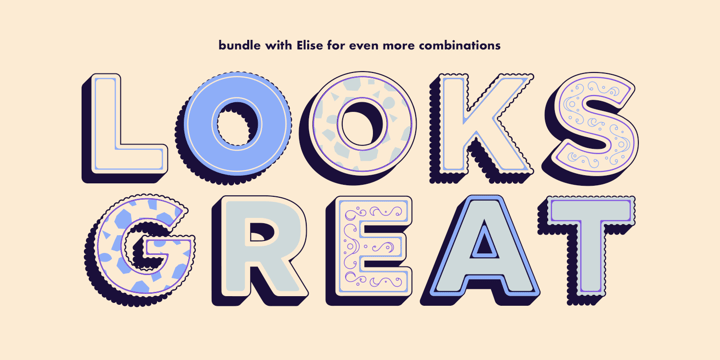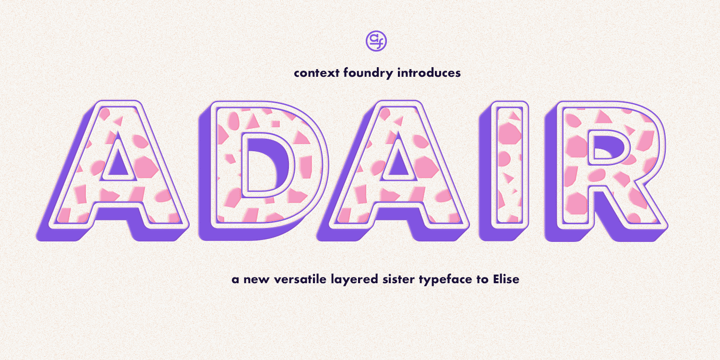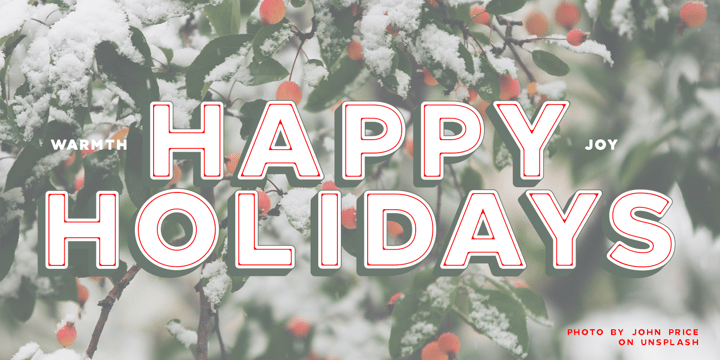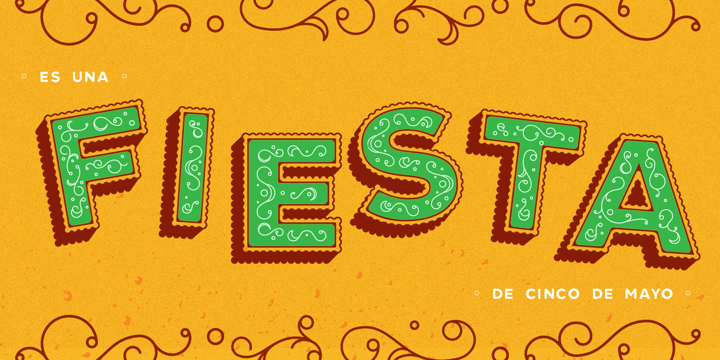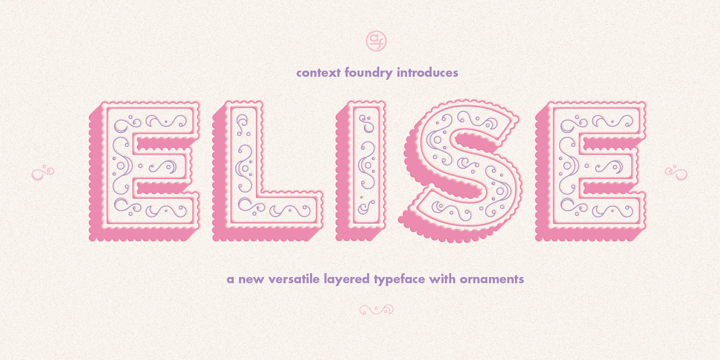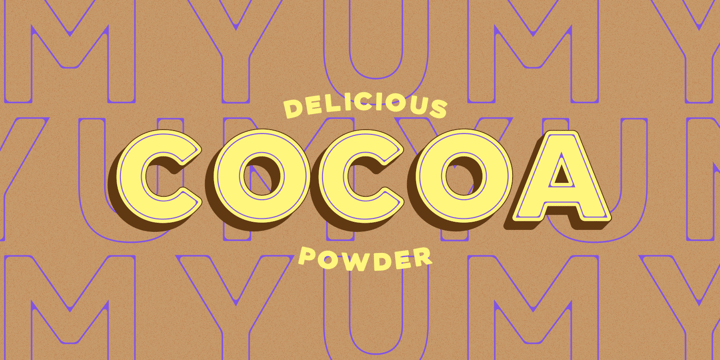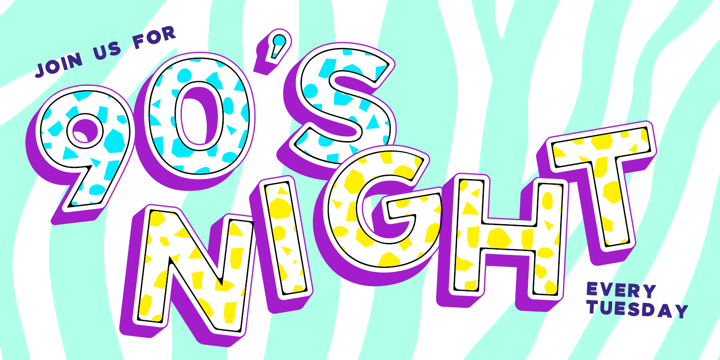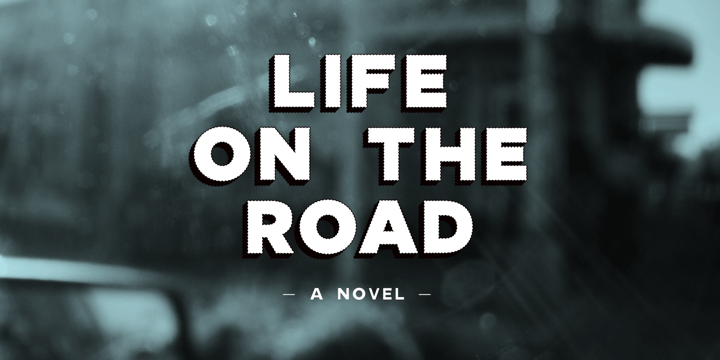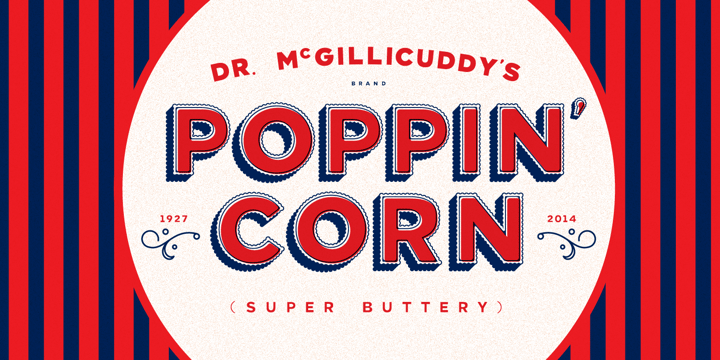
The Sisters Bundle
Includes both layered typefaces from Context Foundry:
Elise
Elise is a sweet natured, layered display typeface, with a few layers but a wealth of options. From the feminine to the fun to the nostalgic, Elise is a capable and personable set. Best used BIG and with color, you’ll always find an occasion for Elise’s charm. To use this typeface, once you have your copy in place in the design program of your choice, copy your text block and paste it directly on top of your existing text block. Set this new text block to a different Elise layer and voila! You’ll already start to see some interesting effects take place. In some cases, different effects are achieved by bringing The Elise Ribbed layer to the front or to the back.
Adair
Like her older sister, Adair is a layered display typeface, with a handful of layers but so many possibilities. This display face is best used BIG and with color. With the right mix of combinations and color you'll always find ways for Adair to make your project shine. To effectively utilize this typeface, simply position your text block in your preferred design software, duplicate it, and overlay one block on top of the other. Adjust the new block to a distinct Adair layer and color, allowing the dynamic effects to emerge effortlessly.